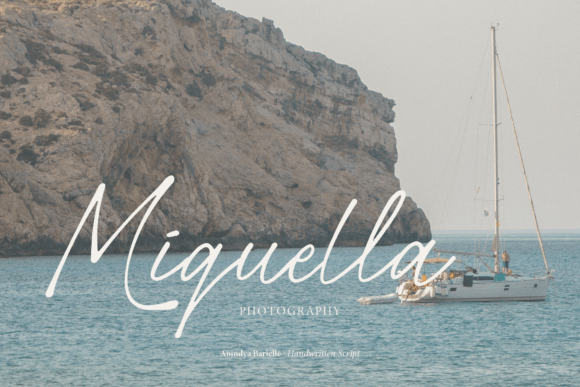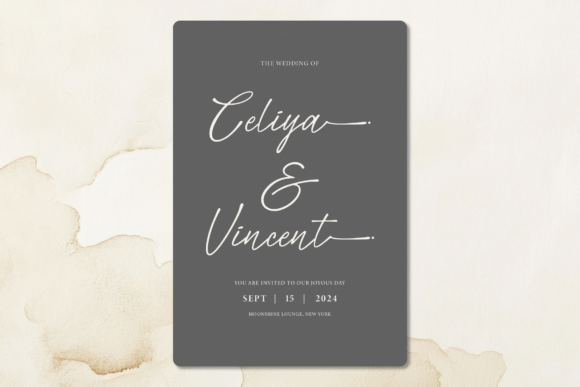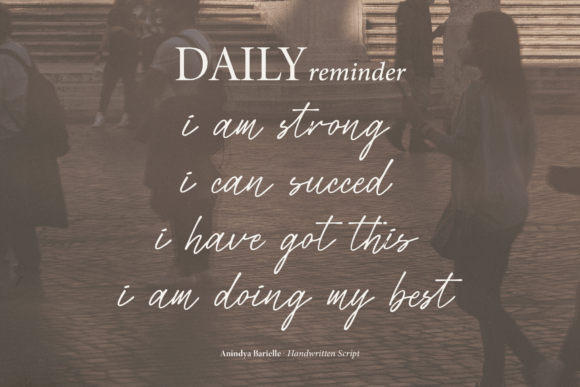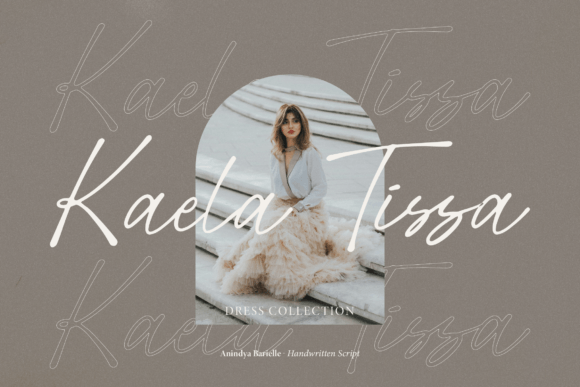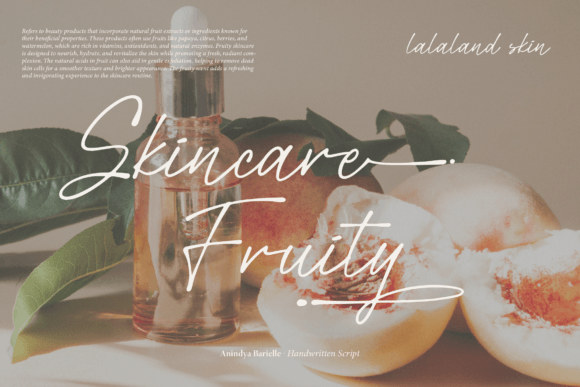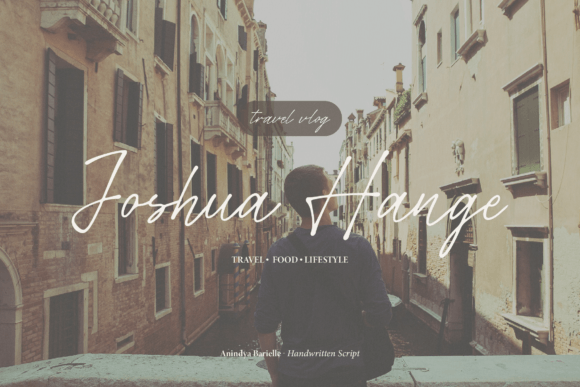
Unleash the Charm of Handwritten Design
Have you ever sat down with a pen and paper, letting your thoughts flow onto the page as you brainstorm a new project? That’s where the magic happens, and that’s exactly where the Anindya Barielle Font comes in – to bring a touch of that same creativity and warmth to your digital designs.
Developed to mimic the natural flow of handwritten letters, the Anindya Barielle Font is perfect for adding a personal and inviting touch to your projects. Whether you’re creating personal notes, invitations, or any design that needs a warm and elegant appearance, this font is sure to impress. With its seamless and connected letters, it’s a valuable addition to any designer’s toolkit, offering a unique and professional look that’s hard to replicate with standard fonts.
Anindya Barielle Font Key Features
- Unique Characteristics: Anindya Barielle Font features a unique blend of modern and traditional elements, with intricate details and ornate flourishes that set it apart from other script fonts.
- Font Style: Anindya Barielle Font is available in both Regular and Bold weights, allowing users to choose the perfect style to suit their design needs.
Review of Anindya Barielle Font
Anindya Barielle Font is a beautiful, elegant script font that I’ve had the pleasure of working with. There are many things that I appreciate about this font.
- ✨ It has a very organic feel to it, with subtle variations in letterforms that give it a handmade look.
- ✨ The font is highly legible, even at small font sizes, making it perfect for body text or headings.
- ✨ The font family includes a wide range of weights and styles, from light to bold, and with various ligatures and swashes.
However, I do have a few concerns about this font.
- ⚠️ The font may not be suitable for use in very condensed spaces, such as narrow columns or small digital screens, as the letterforms can become quite wide.
Overall, I think Anindya Barielle Font is a beautiful and versatile font that can add a touch of elegance to any design project. However, it’s worth being mindful of the potential limitations and taking steps to ensure that the font is used effectively in a given context.
The Anindya Barielle Font is ideal for creating elegant and sophisticated designs. Use it for wedding invitations, luxury brand logos, or high-end marketing materials. To get the most out of this font, experiment with different font sizes and styles to create visual interest. You can also pair it with other elegant fonts to create a unique look.